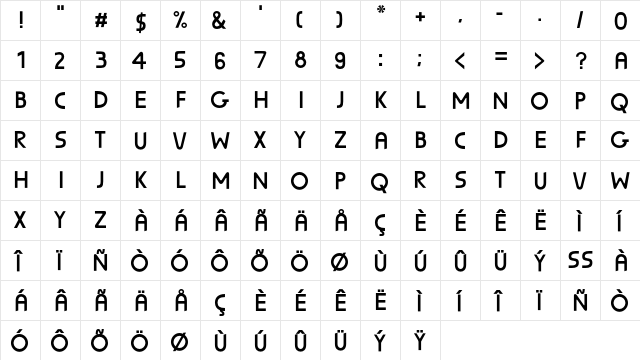
Sunscreen Unscreened
Design Context for Sunscreen Typeface
Sunscreen is a composed and adaptable typeface that performs quietly and consistently across a wide range of design contexts.
Pro Tip: Use Sunscreen in both headline and body roles to test its range before committing to a single application.